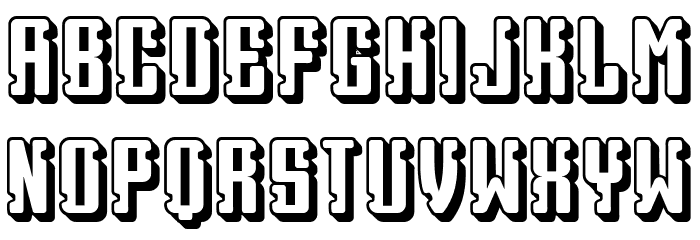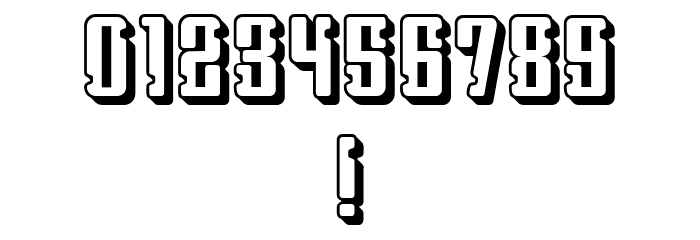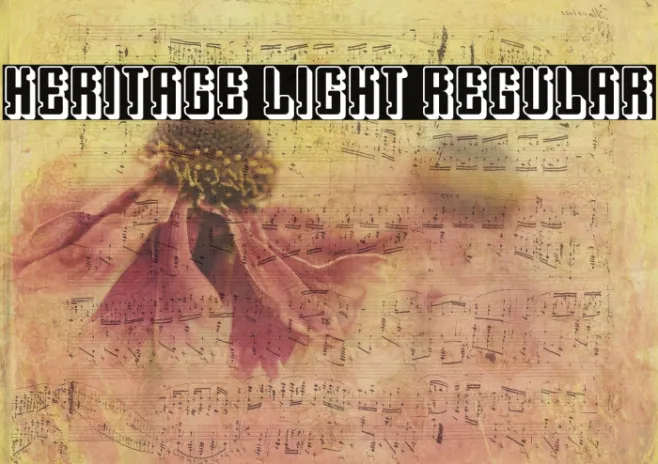
Heritage Light Regular Font
This font features a bold, decorative style with a three-dimensional effect created by a shadow outline. The characters are uppercase and have a blocky, geometric design that gives them a strong presence. The font is highly legible, with consistent stroke widths and clean lines. The shadow effect adds depth and a sense of movement, making it suitable for eye-catching designs. The numbers and punctuation marks follow the same stylistic approach, ensuring uniformity across all characters. This font is ideal for projects that require a bold statement or a vintage-inspired look.
A bold, decorative font with a 3D shadow effect and geometric design.
- Proposed Projects: Ideal for posters, headlines, logos, and vintage-themed designs.